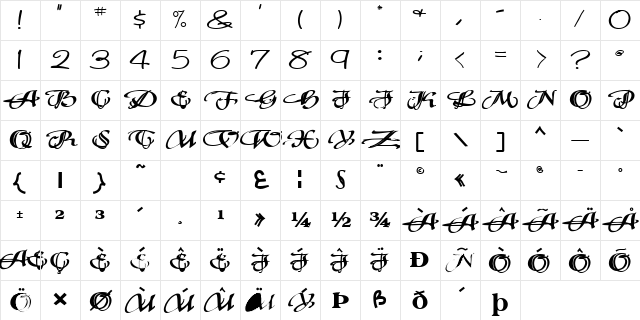
FreshCapFont120 Bold
Design Context for FreshCapFont120
FreshCapFont120 is a composed and adaptable typeface that performs quietly and consistently across a wide range of design contexts. Its bold stroke weight gives it real presence on the page.